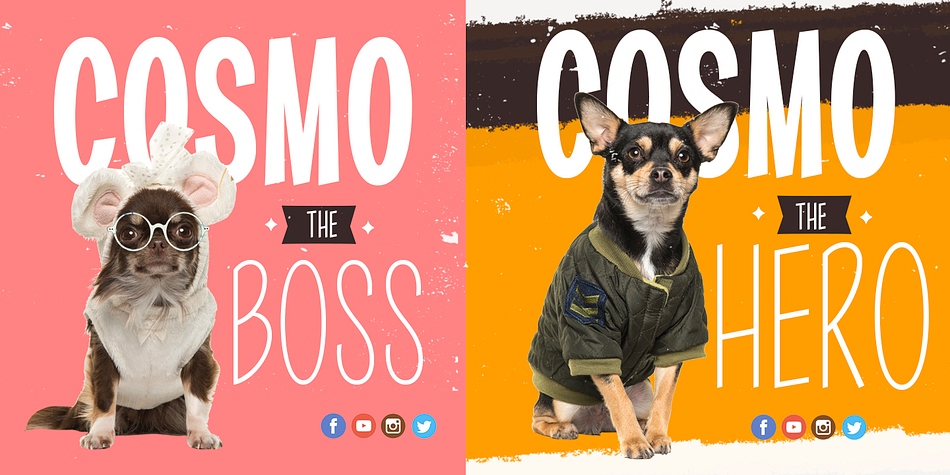
PINTANINA FAMILY
Pintanina Family is a comic and dingbat font family. This typeface has nine styles and was published by Rodrigo Typo.
Pintanina was developed in 2013 with many alternatives of alphabets as ligatures. Based on the Comics of Condorito in the headlines, a typography very condensed was born.
In 2015, it was redesigned with the help of Andrey Kudryavtsev. Pintanina Pro has a much more finished design and better Cyrillic.
Now, in 2017, with the help of Franco Jonas, Pintanina has become a complete family of Thin, Light Regular, Bold, Extra Bold, and Black weights. Additionally, the family includes different dingbats that can be of help creating titles.